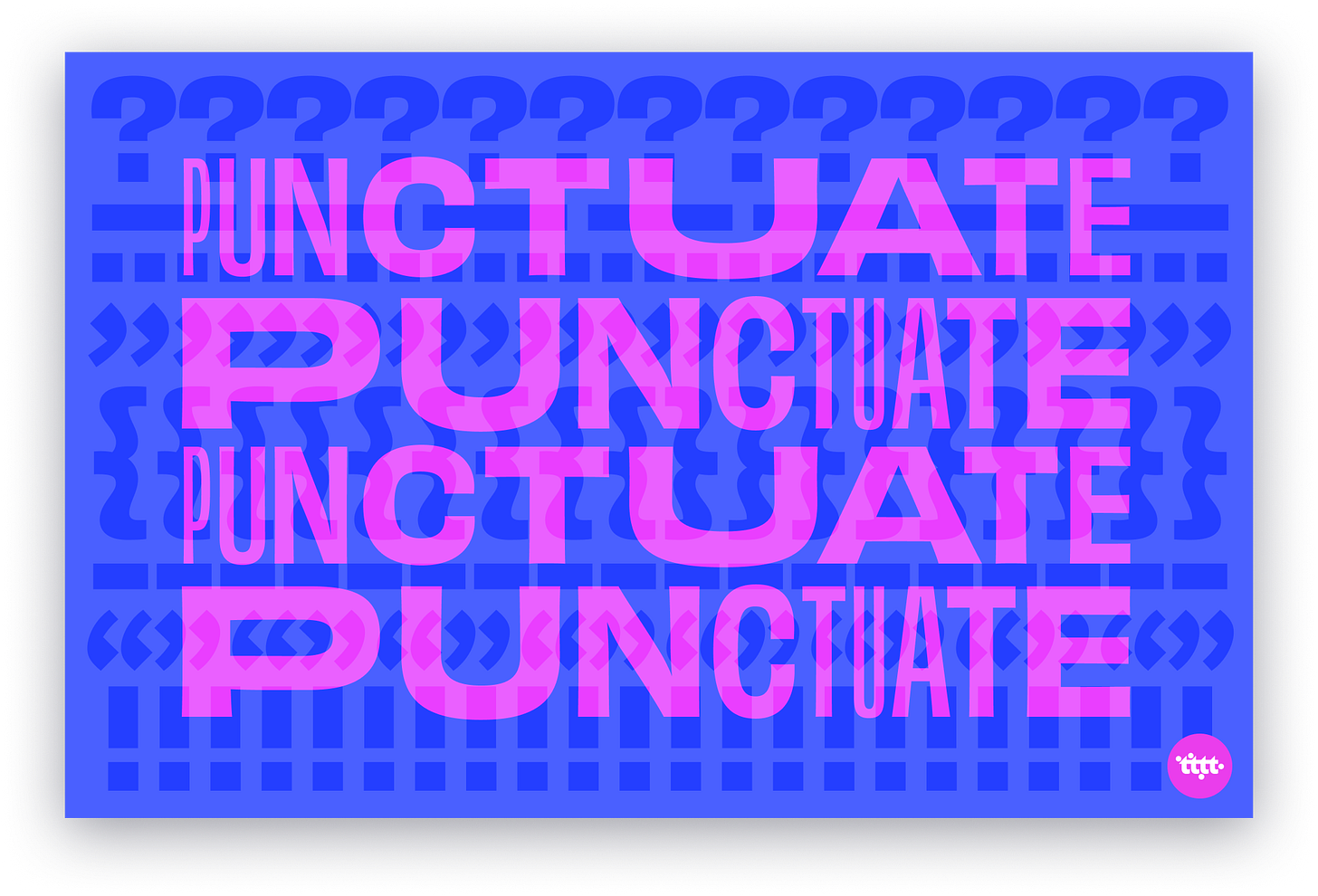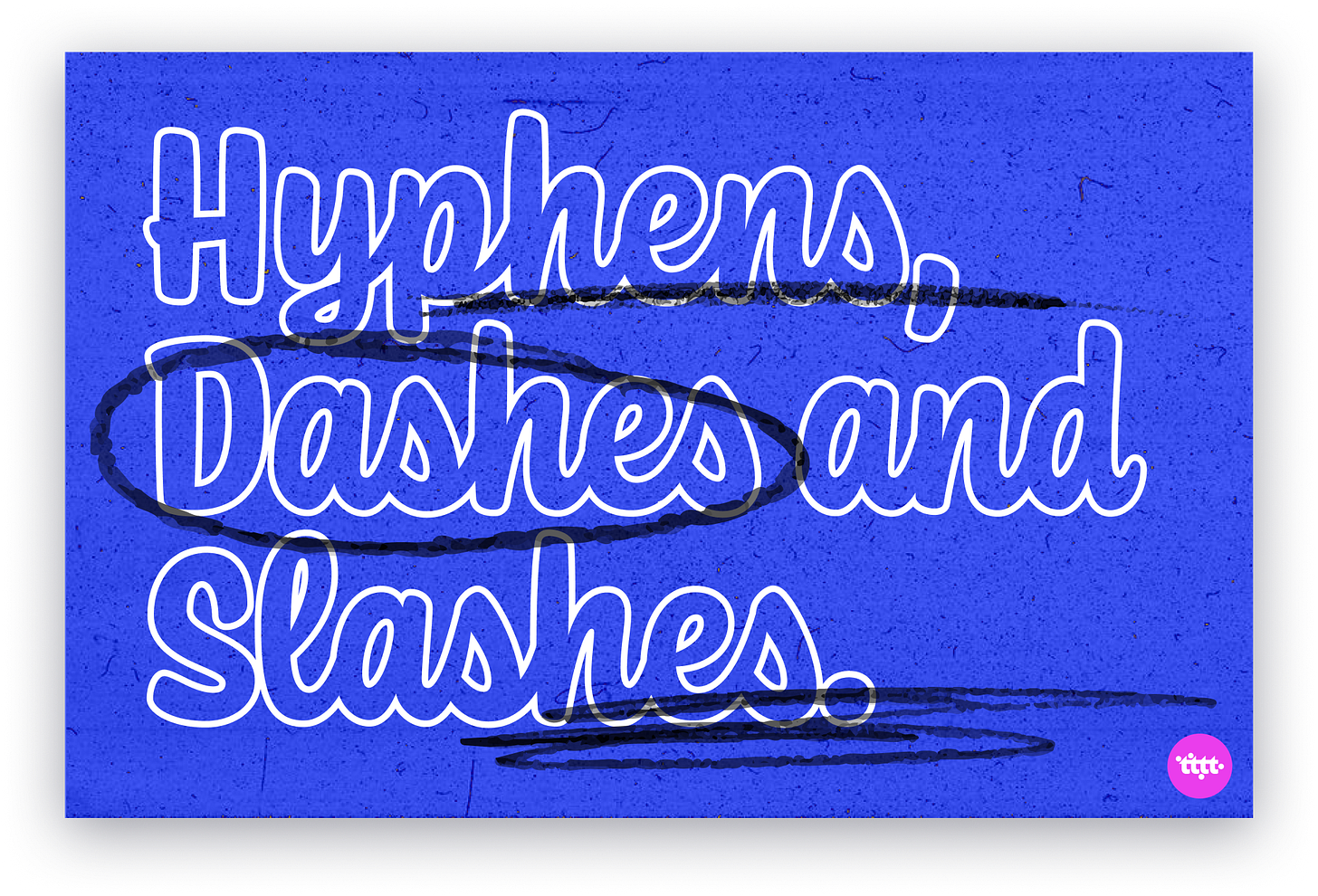
Pause, then Punctuate
Today’s issue might not be about typography in the conventional sense, or at least, as most of us think of it. The alphabet take all the limelight, followed by the number set and perhaps, the Ampersand in second place.
Typographic symbols, why care? Because typography is about reading and typographic symbols and punctuation help us read right, and better. That’s why.
Case closed.
Psych! Obviously, there’s more.
To Hyphen, Dash or Slash?
Firstly, if you’re just hearing there’s a difference between hyphens and dashes, welcome to the other side. Don’t blame me if you very quickly become an ‘em dash’ junkie. I, personally, have a serious em dash obsession. Look— they are gorgeous. They break words so inorganically, and that’s exactly how we speak and enunciate!
Let’s now learn about 3 types of punctuation— hyphens, dashes (en and em) and slashes (forward and back). Hyphens and dashes— the what, the why, the dos and don’ts. Use them, don’t confuse them. For slashes, there's two kinds, forward and back. Backslashes are pretty straightforward (no links needed), used only for computer coding. PHEW— done. Forward slashes, or just slash, or virgule, if you’re feeling fancy, are used and mean very different things based on the context. Here’s more on that.
💥 Some Good $#*! 💩
What do you say when you drop hot coffee on yourself? $*%!? Wait, why did I get censored? What just happened? Did I just self-censor to prove a point? Yes.
They’re called Grawlix. A string of typographical symbols used (especially in comics) to represent an obscenity or swear word. The graphical version of bleeping out a word, if you will— applied in both graphic and textual settings. Typically, a grawlix is made from the unpronounceable characters that can be found on top of the number row on your computer keyboard like @, #, $, %, &, * and so forth.
The invention of the term Grawlix is credited to American Cartoonist Mort Walker, creator of Beetle Bailey and author of The Lexicon of Comicana, a book where he collected a number of terms created for the tropes of comic drawing. Off typ-opic (when I do write The Lexicon of Typorama, this will be a hit!), but here’s a fun read about many more such made up words from the world of comics.
🤓 The Punctuation Guide 🤓
There’s a lot more to punctuation than commas and fullstops. And mind you, there’s so much to just commas and fullstops; Parentheses, apostrophes, quotation marks, colons and semicolons, ellipses… and have you heard of the Interrobang? It’s an unconventional mark (used in various scripts) that combines the functions of the question mark, and the exclamation point. For eg, What is 2020‽ So yeah, there’s that.
I’ve learnt more about how to correctly use punctuation from just researching and writing this issue. A good start to punctuation is here. And punctuation in the context of type composition, here.
It’s easy to write off attention to punctuation as unnecessary or even, geeky. And in all fairness, we all do it everyday, and we’re doing okay. Imperfect punctuation never killed a man (or design?), but good use of punctuation can make a huge difference to how your reader/user reads or interacts with your designs. Typography is all about details and feels. Once you see it, you see it.